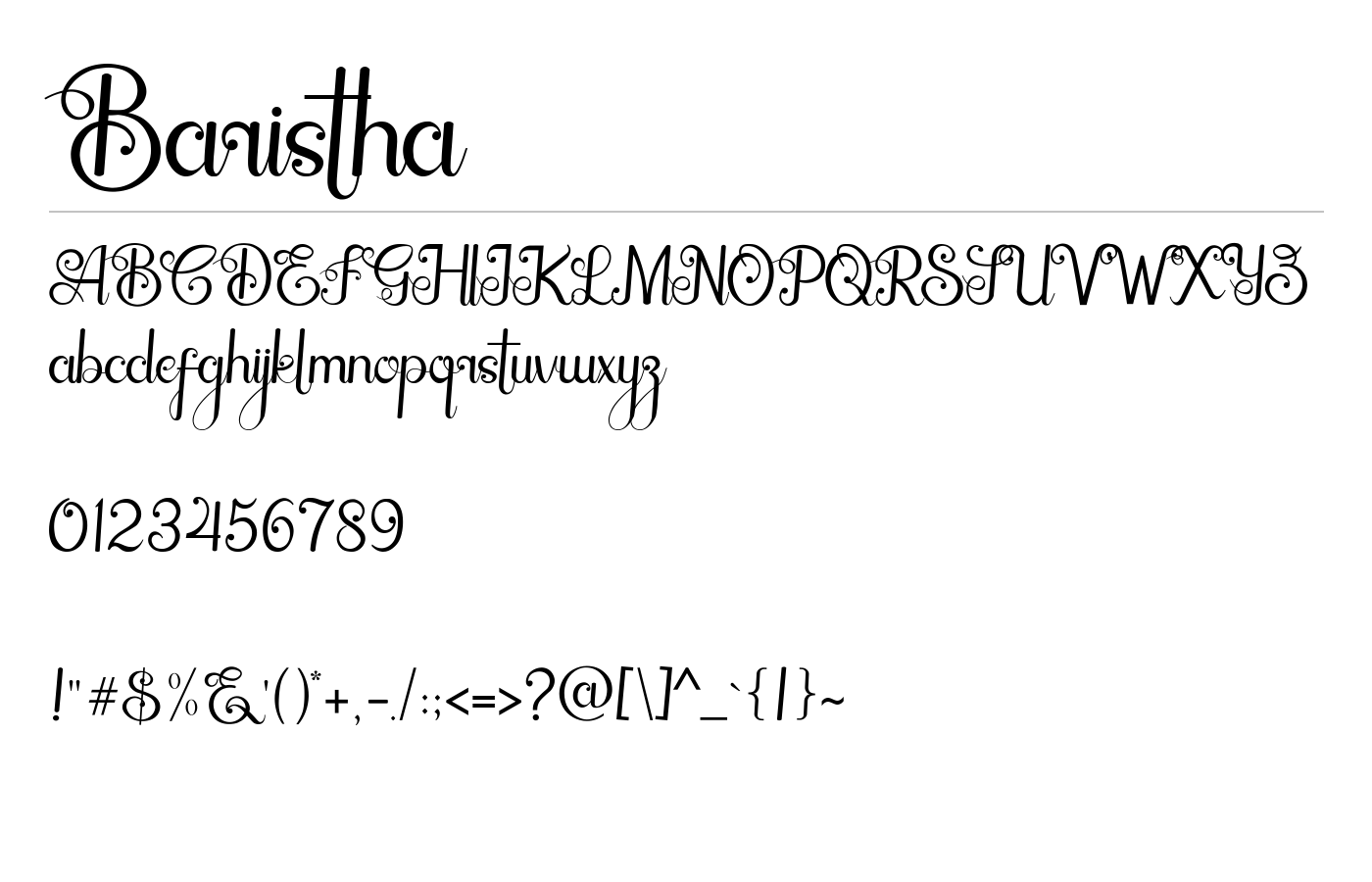
Baristha is a decorative script font with elegant, flowing letterforms featuring intricate swirls and curls that give it a sophisticated, handmade feel. Its slender, tall characters combine both classic and playful elements, making it ideal for luxury branding, invitations, and stylish headlines where a touch of grace and personality is desired. This font shines in settings that call for a unique and refined look without sacrificing readability.
Baristha Font
About Baristha Font
| Font family | Baristha Font |
| Designer | Kapri Prianto ( Neutrone Labs ) |